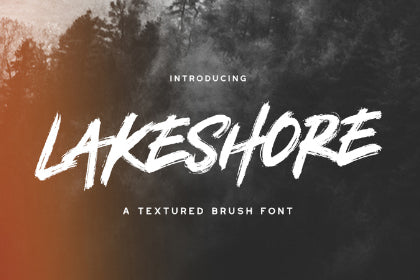
Free Lakeshore Brush Font
We're glad to feature this awesome free lakeshore brush font. Free Design Resources has created this amazing and beautiful font. This is absolutely fancy font so you can easily make world-class designs.